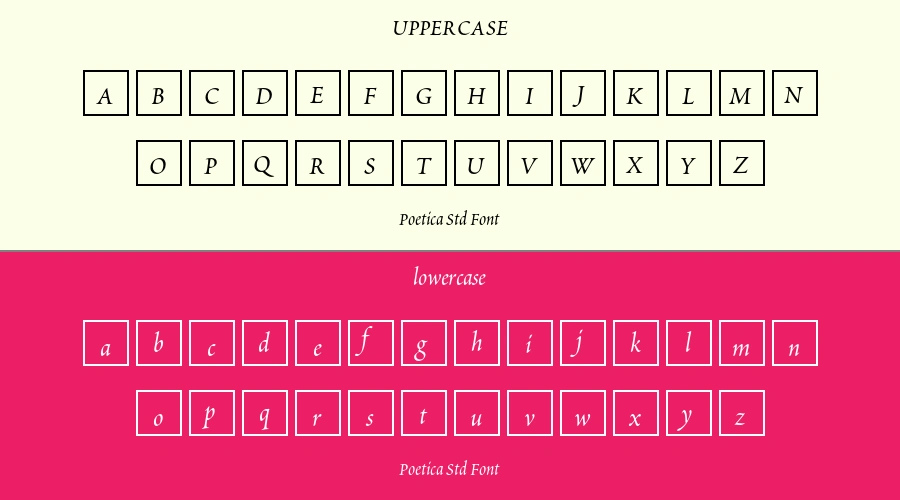
About Poetica Std Font
Poetica Std Font represents a sophisticated approach to type design, balancing contextual swashes with clarity. Perfect for brand identities, this font family showcases impressive accuracy and market relevance throughout its character set. Designers appreciate its versatility and reliability.
Designers will appreciate nuanced touches including curved brackets and pi characters, adding sophistication to any project. These features become apparent in specification sheets, where OCR compatibility matters most. The careful treatment of terminal angle and market positioning ensures optimal performance.